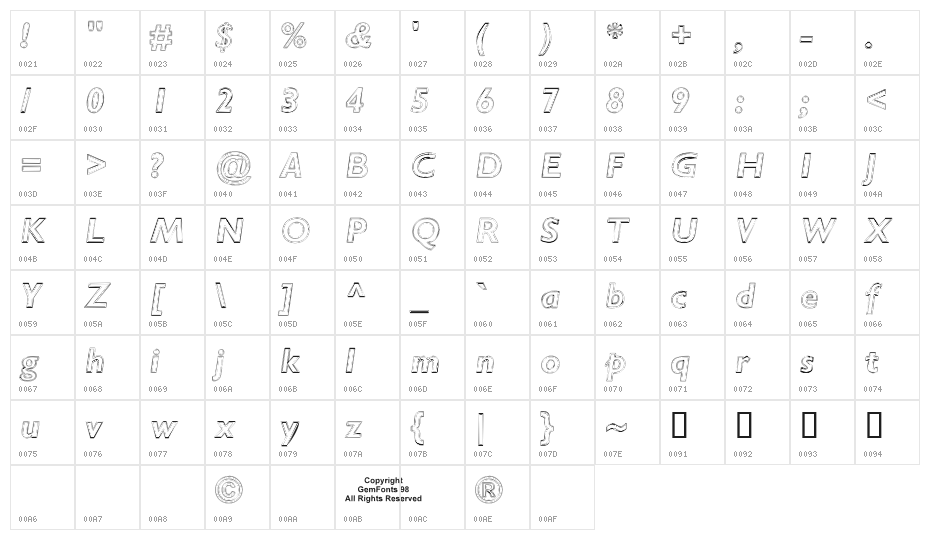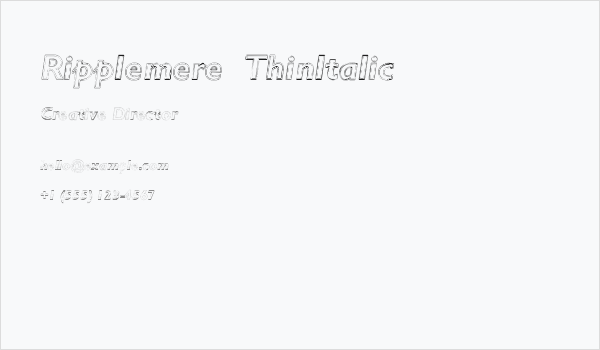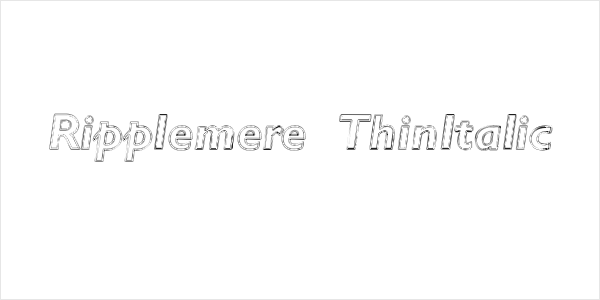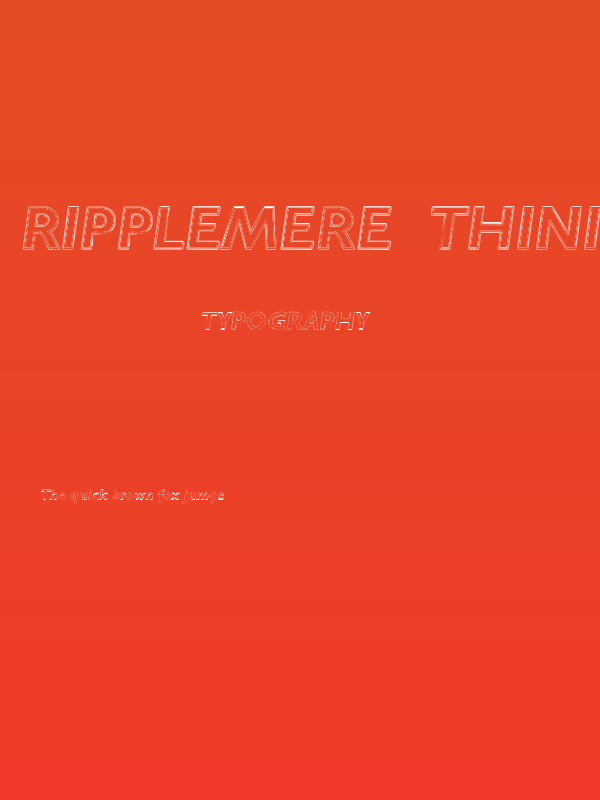
Ripplemere ThinItalic Font
Ripplemere ThinItalic Description
This font features a thin, italicized style with a modern and elegant appearance. The characters are outlined, giving them a unique, three-dimensional effect. The uppercase and lowercase letters maintain a consistent slant, enhancing the italicized look. Numbers and special characters are designed with the same thin, outlined style, ensuring uniformity across all glyphs. The font's delicate strokes and outlined design make it suitable for creative and artistic projects, where a touch of sophistication is desired. Its thin weight and italic nature suggest a sense of movement and fluidity, making it ideal for dynamic and expressive designs.
| Overall Style | Modern, Elegant |
| Use Case | Headlines, Artistic projects, Branding |
| Proposed Projects | Ideal for creative projects such as invitations, artistic posters, branding materials, and editorial design where a sophisticated and modern touch is needed. |